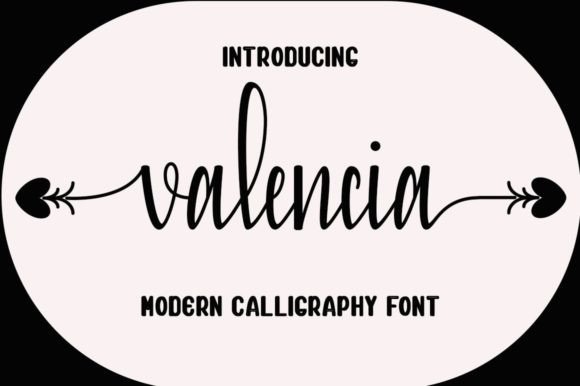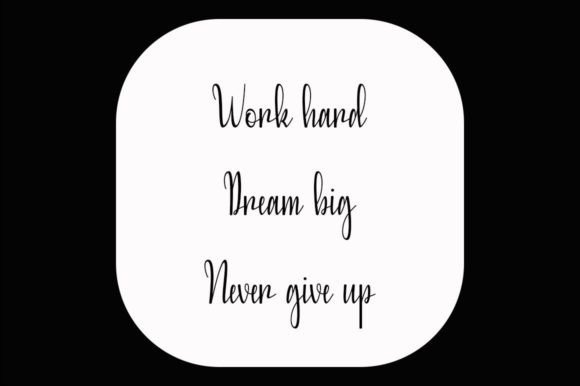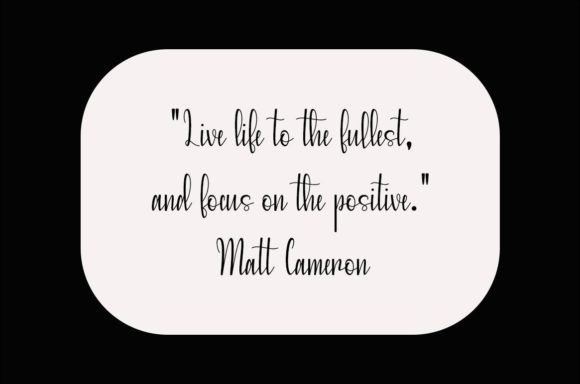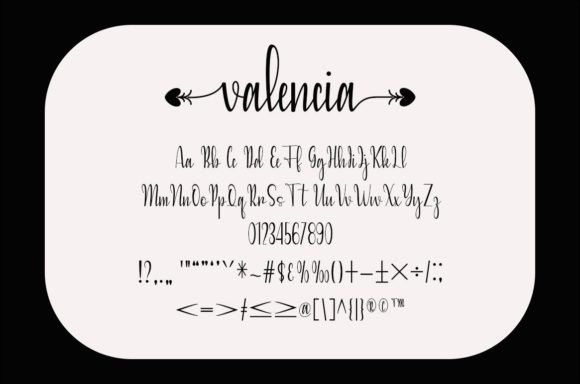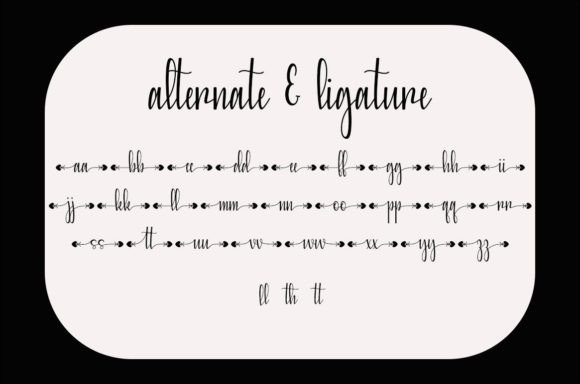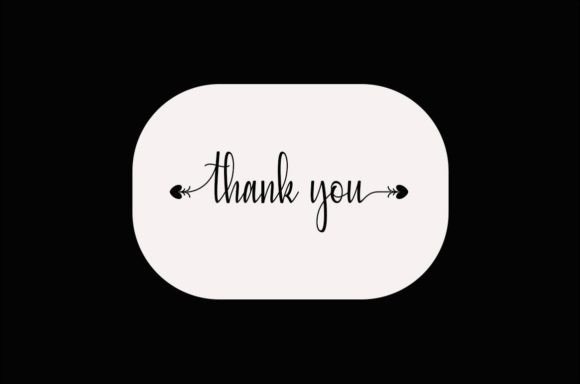
Valencia Font
About Valencia Font
Valencia is a captivating handwritten font that exudes enchantment and charm. Its versatility makes it well-suited for a broad range of applications, spanning from delightful greeting cards to eye-catching headlines. The font’s appeal lies in its ability to convey a sense of warmth and personality, adding a touch of handcrafted elegance to various design projects.
One notable feature of Valencia is its PUA (Private Use Area) encoding, providing users with effortless access to a rich array of glyphs and swashes. This encoding ensures a seamless experience, allowing designers to explore and incorporate a diverse range of characters and decorative elements effortlessly. Whether you’re looking to enhance the visual appeal of your text with unique glyphs or add stylish flourishes with swashes, Valencia’s PUA encoding empowers you to do so with ease.
This font’s handwritten aesthetic brings a personal and authentic feel to your creations, making it an excellent choice for projects that demand a touch of individuality. From crafting personalized greeting cards to designing attention-grabbing headlines for various media, Valencia’s versatility shines through, adapting effortlessly to different contexts while maintaining its enchanting allure.
In summary, Valencia stands out as more than just a typeface; it’s a design tool that adds a magical quality to your work. Its enchanting handwritten style, combined with PUA encoding for easy access to an array of glyphs and swashes, makes Valencia a go-to choice for designers seeking a versatile and captivating font for a wide spectrum of creative applications.